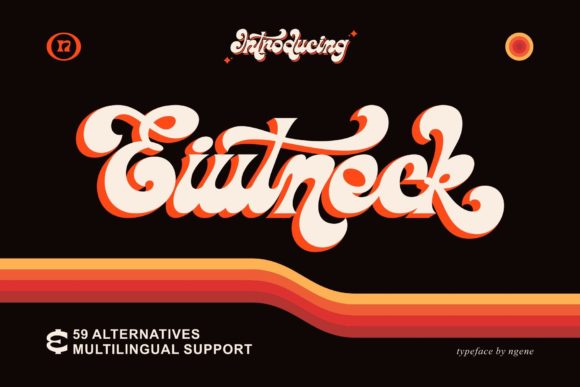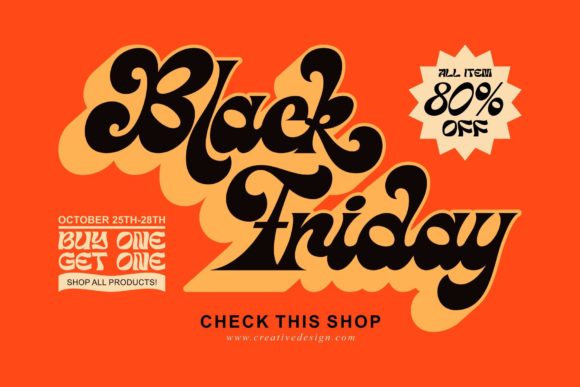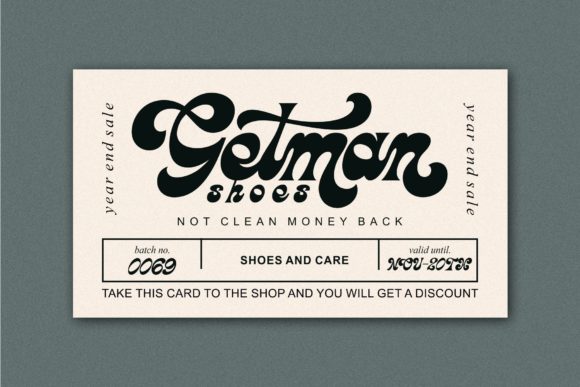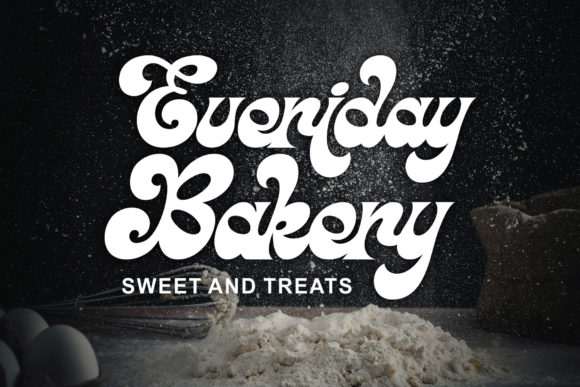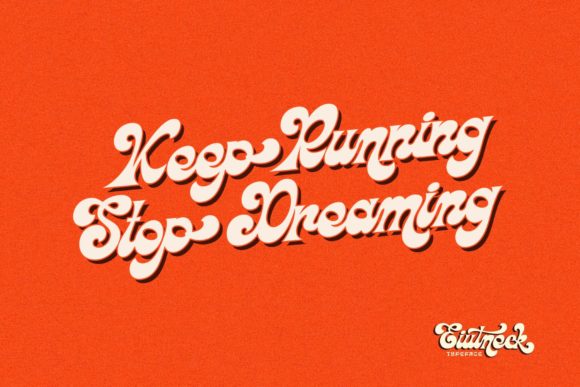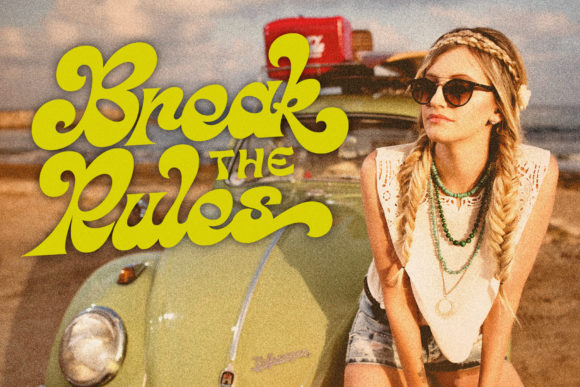
Unlocking the Power of Eiutneck Script Font
As a designer, there’s nothing quite like the thrill of discovering a new font that sparks your creativity and elevates your designs to the next level. For me, that moment came when I stumbled upon the Eiutneck Script Font – a gorgeous, retro looking handwritten font that adds a touch of sophistication and nostalgia to any project.
With its strong, confident, and dynamic feel, the Eiutneck Script Font is a design resource that’s hard to resist. Whether you’re working on a high-quality creative project or simply need a stylish font for your logotype, this font is sure to deliver. And the best part? It’s available for free download, making it an accessible and valuable addition to any designer’s toolkit.
Key Features of Eiutneck Script Font
- High-quality, elegant script font perfect for creative projects that require a touch of sophistication.
- Perfect for use in invitations, signage, logos, and other design elements that require a unique and stylish touch.
Honest Review: Eiutneck Script Font
As a designer, I’m always on the lookout for unique and high-quality fonts to elevate my creative projects. The Eiutneck Script Font is definitely a standout in this regard. With its elegant and flowing script, this font is perfect for adding a touch of sophistication to any design.
One of the things that really impresses me about the Eiutneck Script Font is its versatility. It works well for both digital and print projects, making it a great addition to any design resource.
- ✨ Elegant and flowing script
- ✨ High quality and professional-looking
- ✨ Transparent background, making it easy to use on any background
- ✨ Perfect for creative projects, such as invitations, branding, and more
- ⚠️ Limited character set, which may not be suitable for longer text
- ⚠️ May require some adjustments for optimal legibility on certain devices
Overall, I’m really impressed with the Eiutneck Script Font. It’s a great addition to any design resource, and I would highly recommend it for any creative project. And the best part? It’s available for free download, making it a fantastic value for designers on a budget.
The Eiutneck Script Font is commonly used in wedding invitations, branding, and other design projects where a elegant and creative touch is needed.